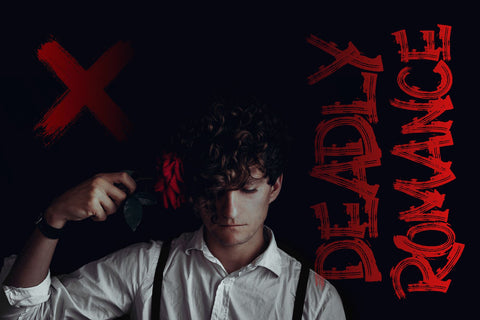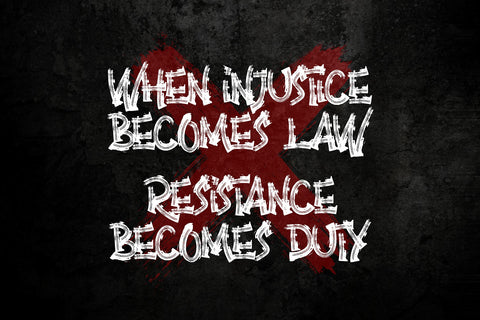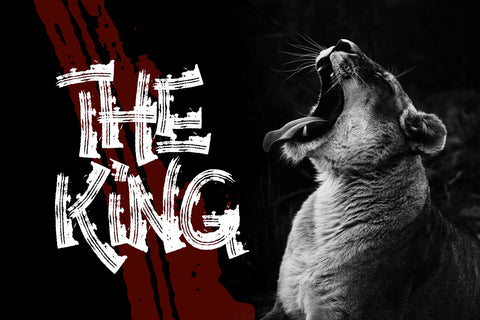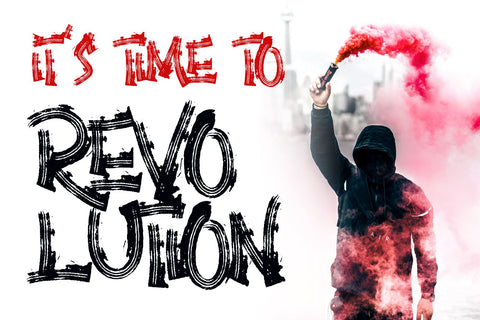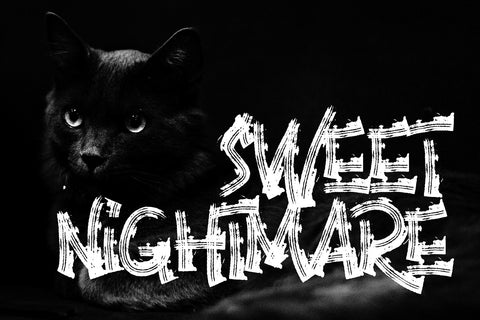
Anarchy Brothers - Strong Handrawn Brush Font
Introducing ANARCHY BROTHERS
ANARCHY BROTHERS is a strong hand-drawn brush font that combines attractive curves with a fresh urban edge; delivering a stylish brush font that is guaranteed to add an eye-catching appeal to your logo designs, brand imagery, handwritten quotes, product packaging, merchandise, social media post, or website font.
- Detailed dry brush markers